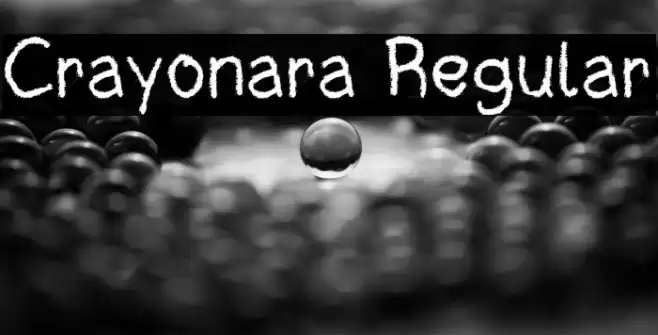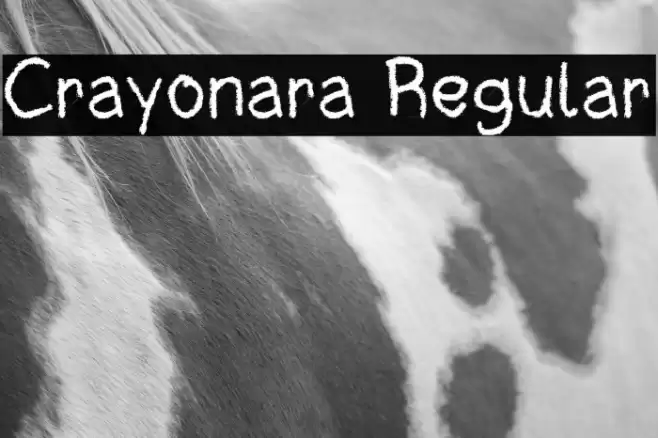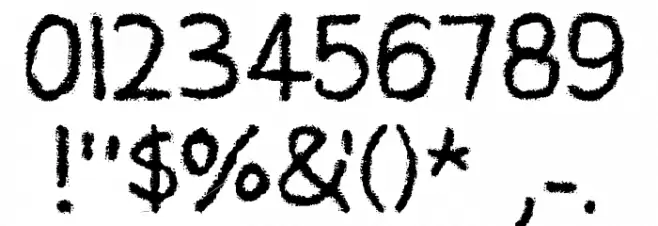
Crayonara Regular Font
Crayonara Regular Description
This font exudes a playful and artistic vibe, reminiscent of hand-drawn crayon strokes. The characters have a textured appearance, with uneven edges and a slightly rough finish, giving it a casual and informal look. The uppercase and lowercase letters maintain a consistent style, with rounded forms and a slight tilt, adding to its whimsical charm. Numbers and special characters follow the same design principles, ensuring a cohesive and unified appearance across all glyphs. This font is perfect for projects that require a touch of creativity and a handmade feel.
A playful, crayon-like font with a textured, hand-drawn appearance from Uncategorized fonts.
- Proposed Projects: Ideal for children's books, educational materials, playful branding, and creative posters.